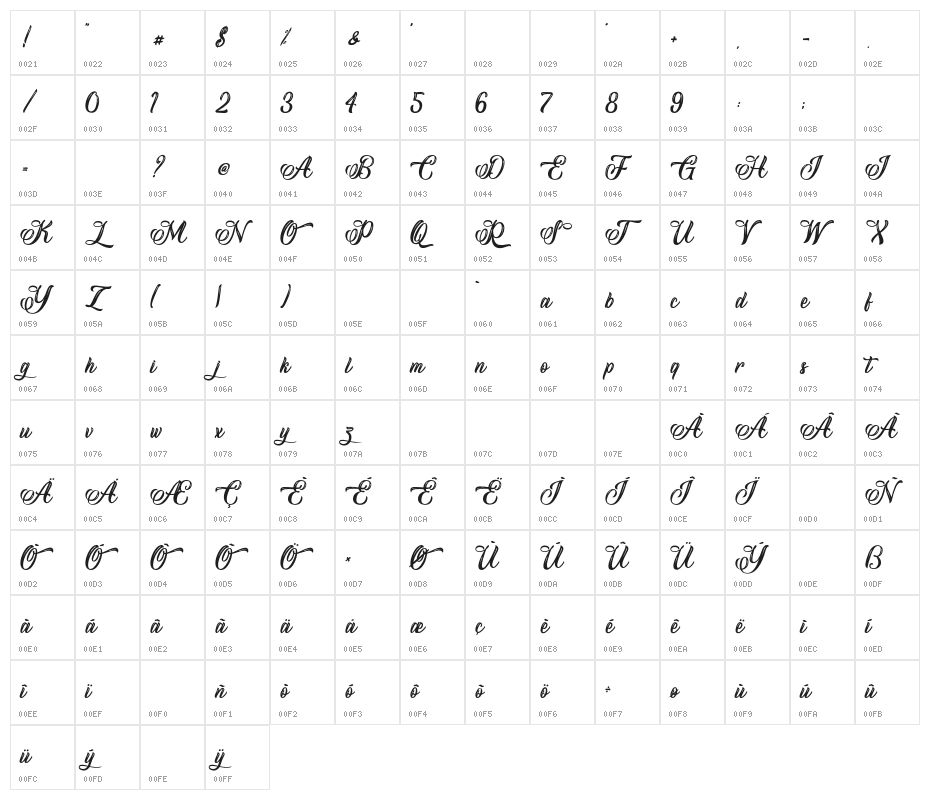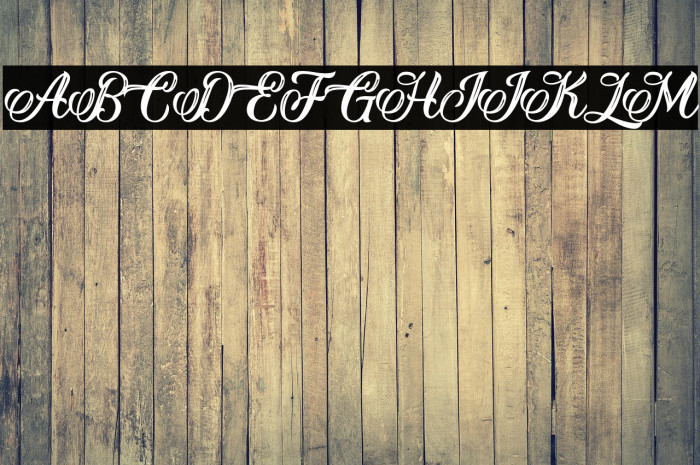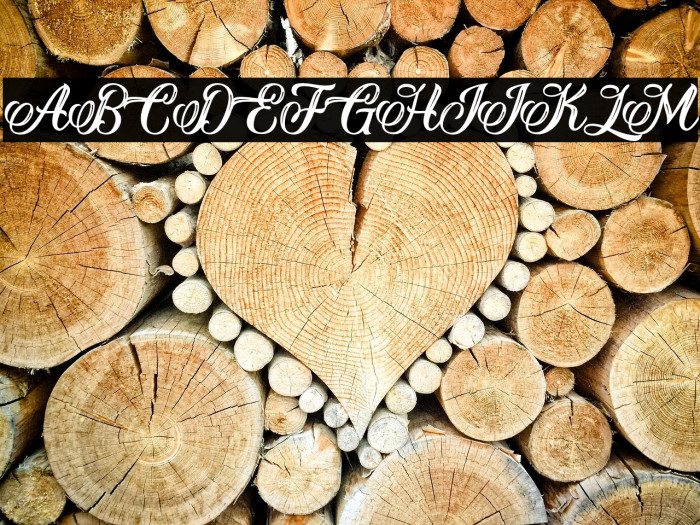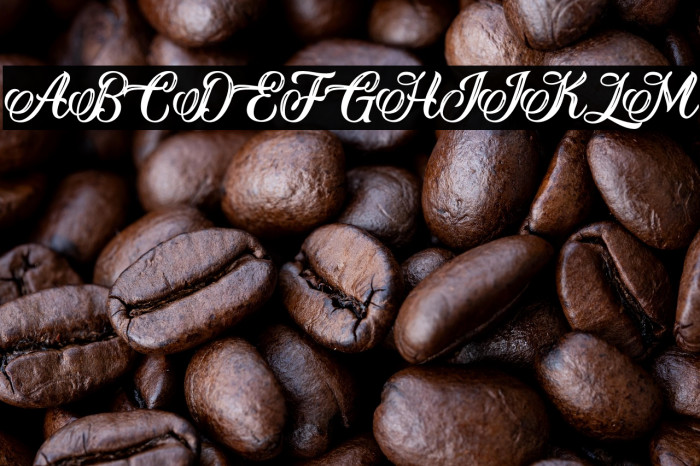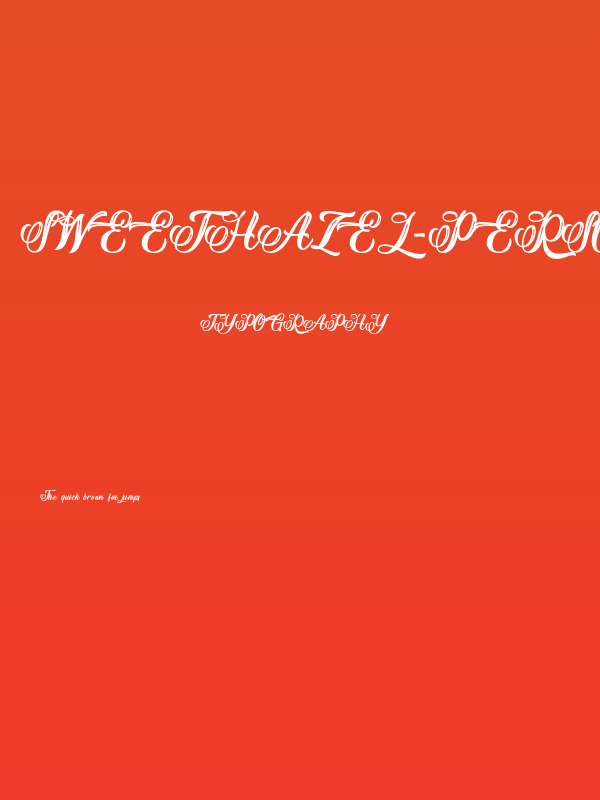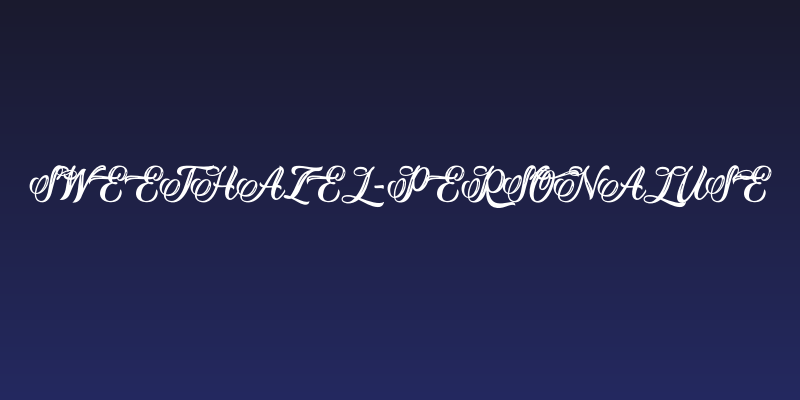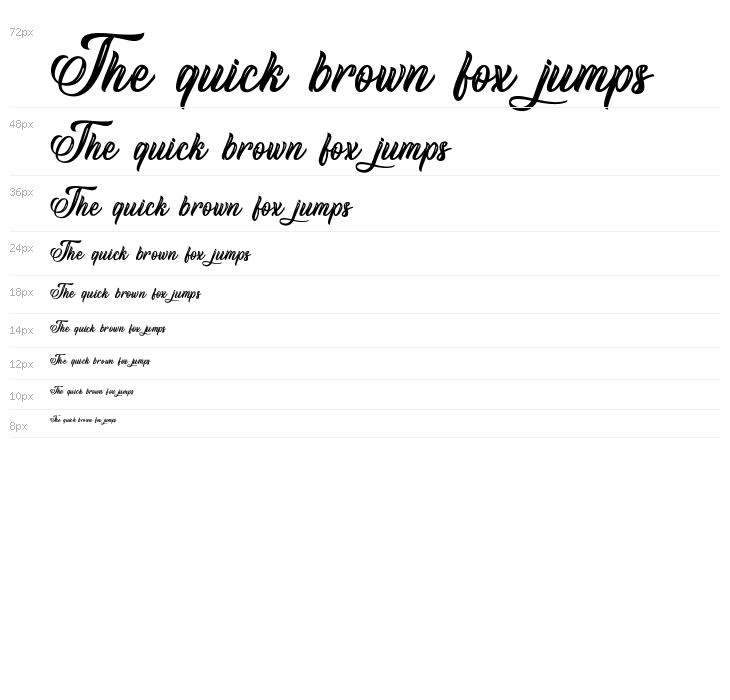
SweetHazel-PersonalUse Font
SweetHazel-PersonalUse Description
This font exudes elegance and sophistication with its flowing, cursive style. The characters are intricately designed, featuring graceful loops and flourishes that give it a handwritten feel. The uppercase letters are particularly ornate, while the lowercase letters maintain a consistent fluidity. Numbers and special characters are crafted with the same attention to detail, ensuring a cohesive look across all elements. The font's overall appearance is both decorative and legible, making it suitable for a variety of creative applications.